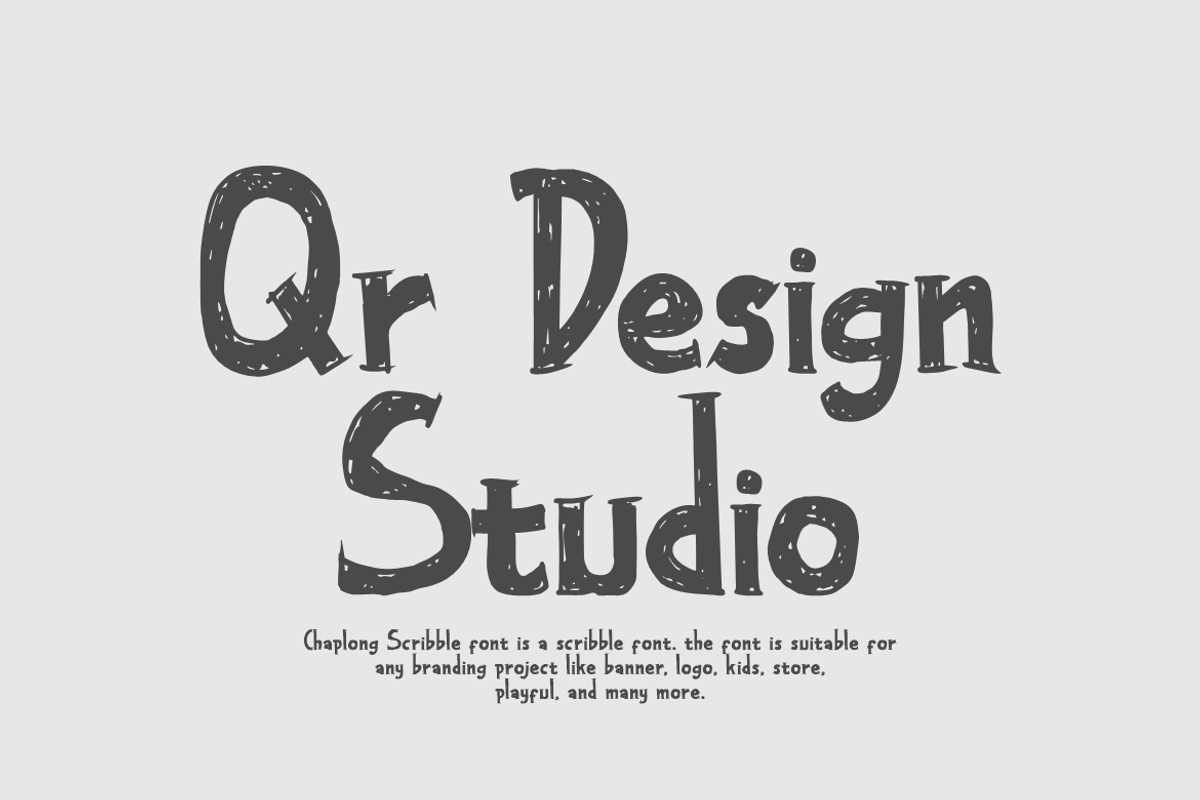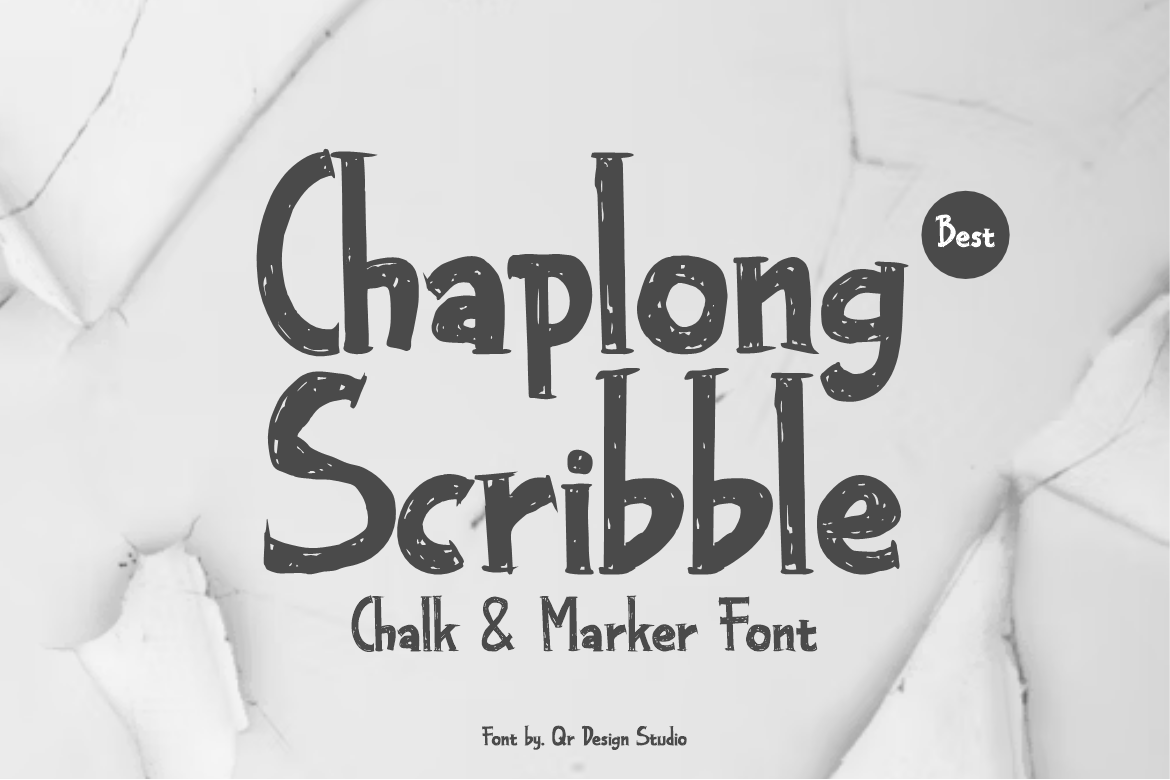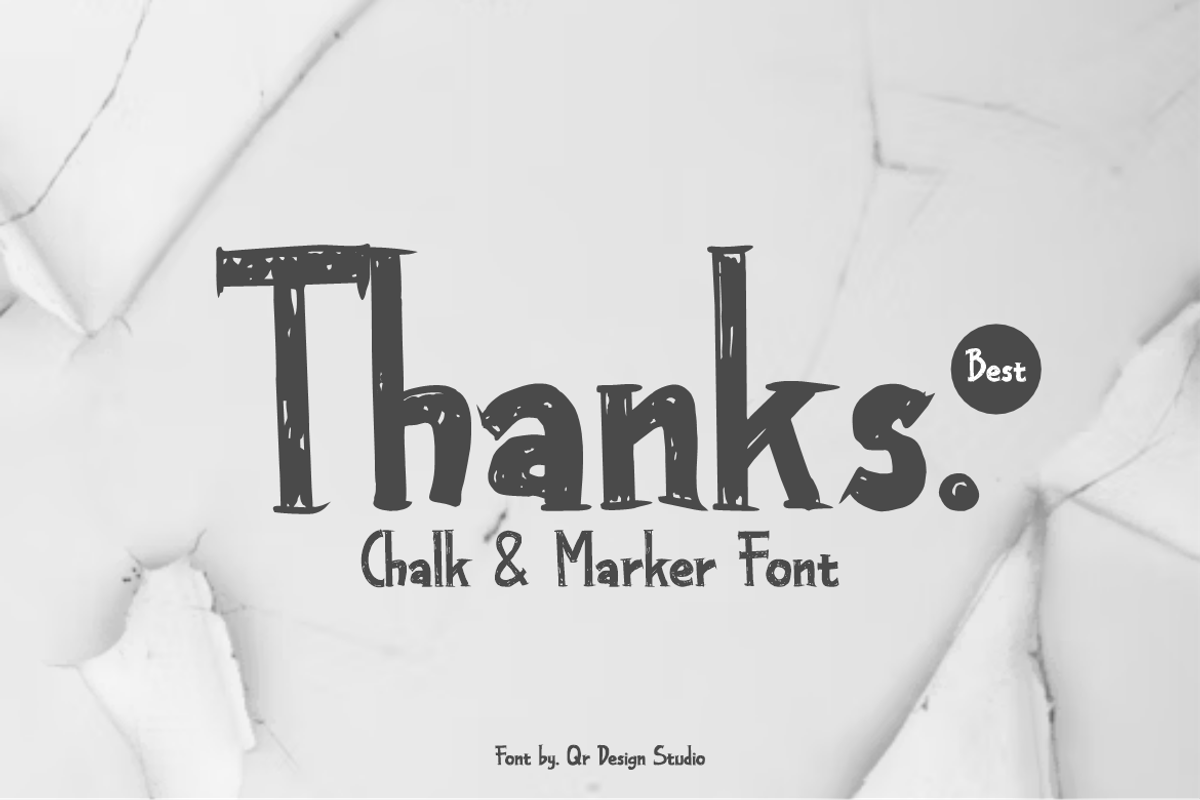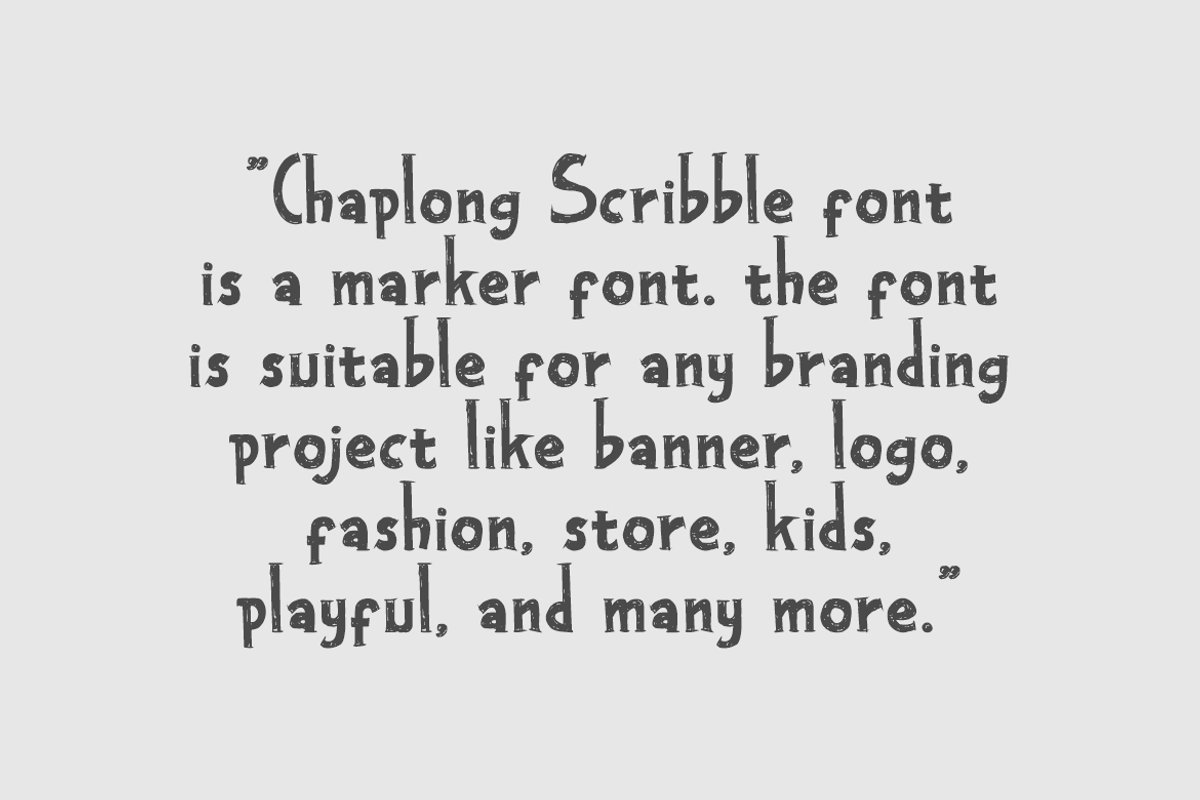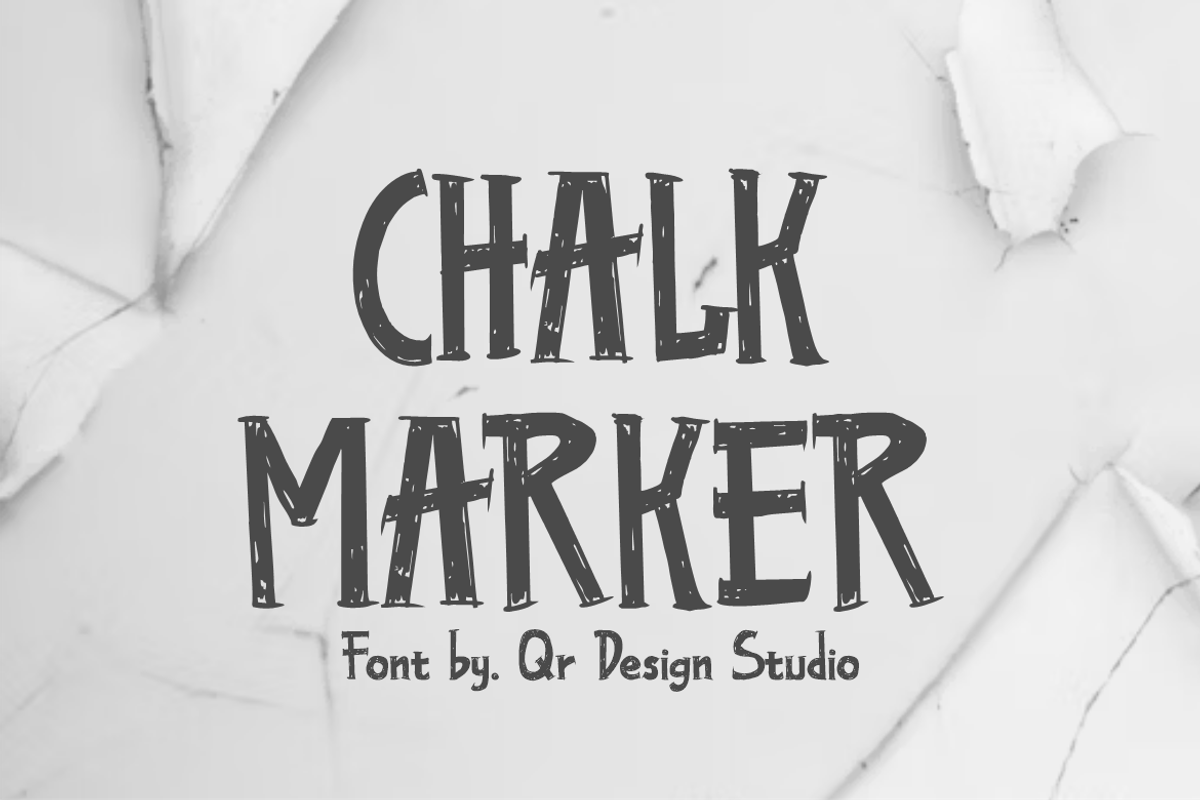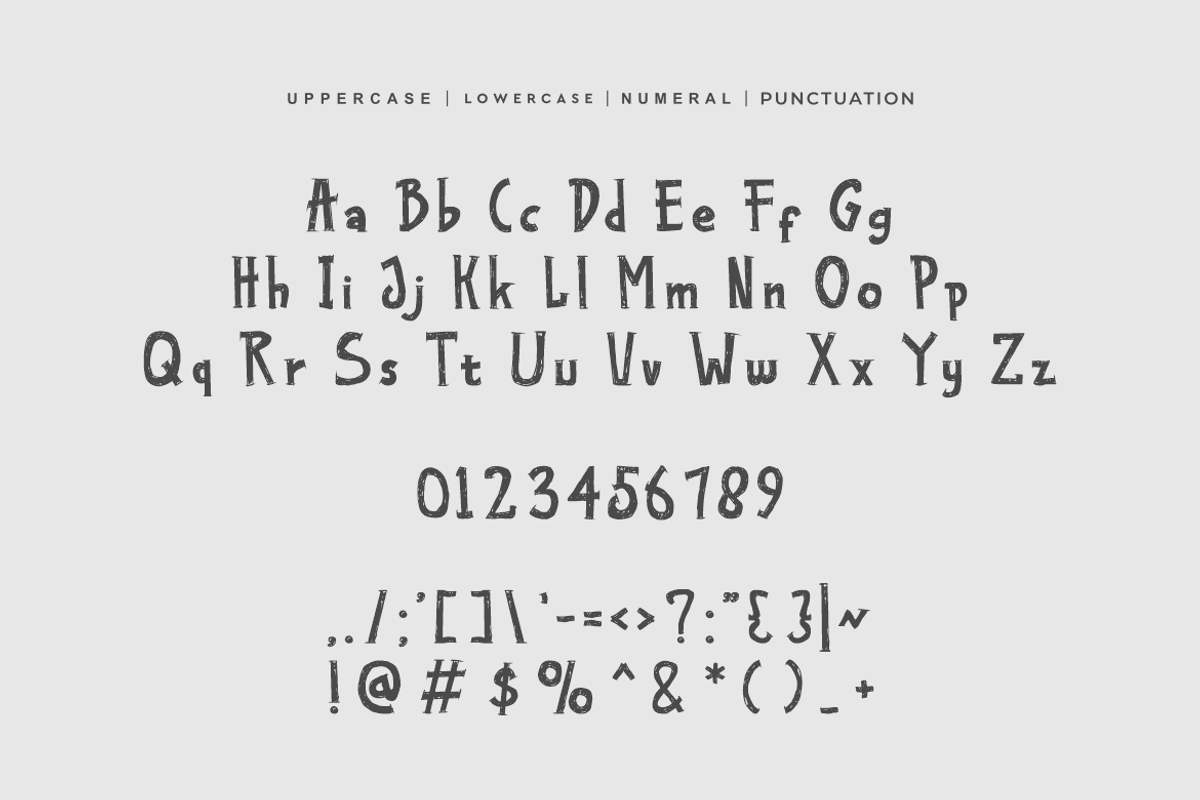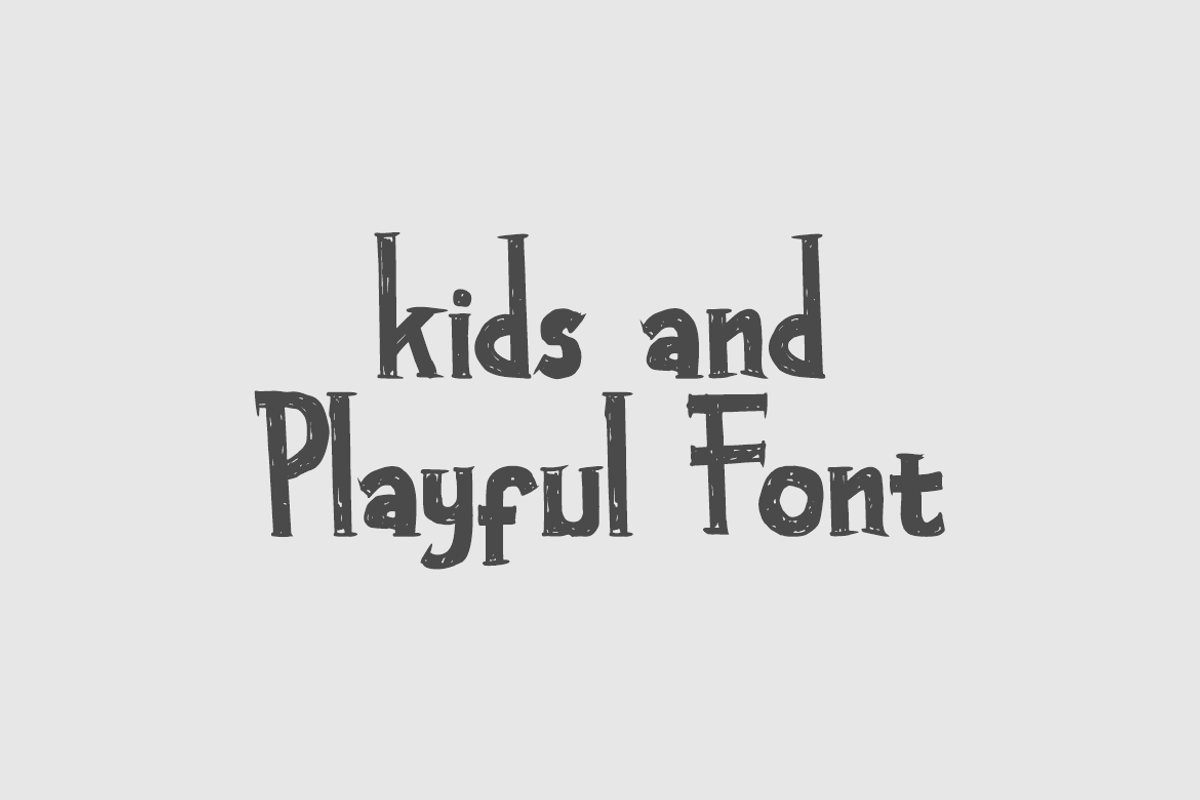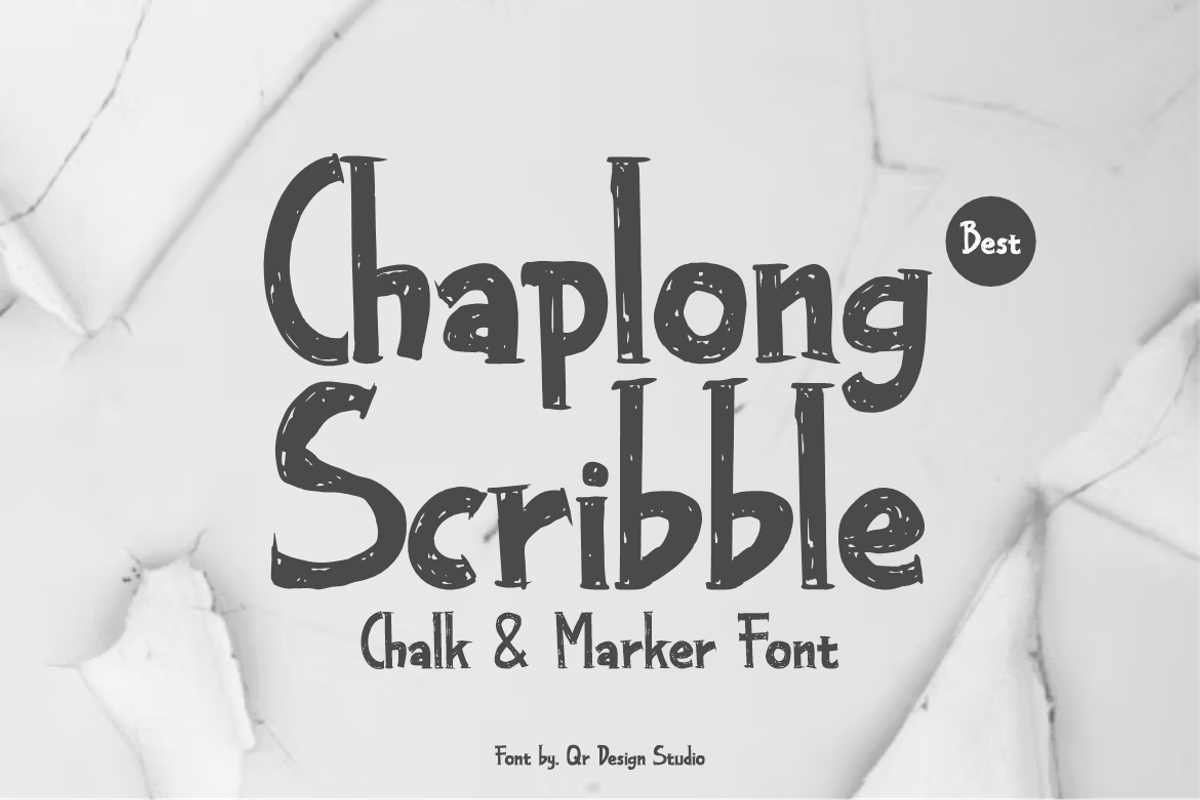
Chaplong Scribble - Marker Font
Chaplong Scribble Font is a scribble and authentic display font. The font is suitable for any branding project like poster, logo, kids, and many more. Outstanding in a wide range of contexts.